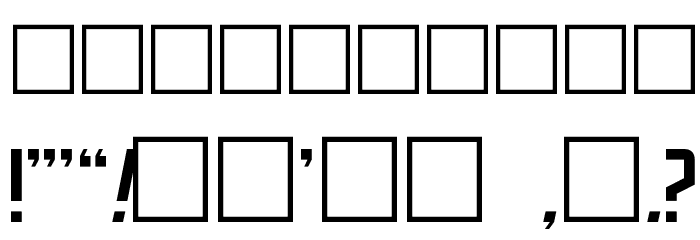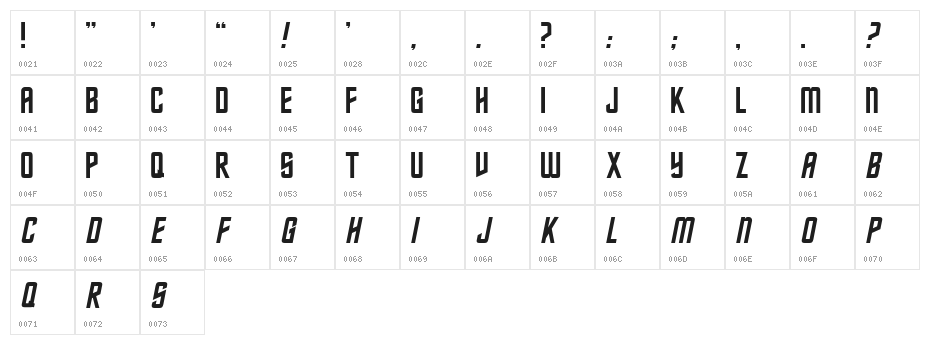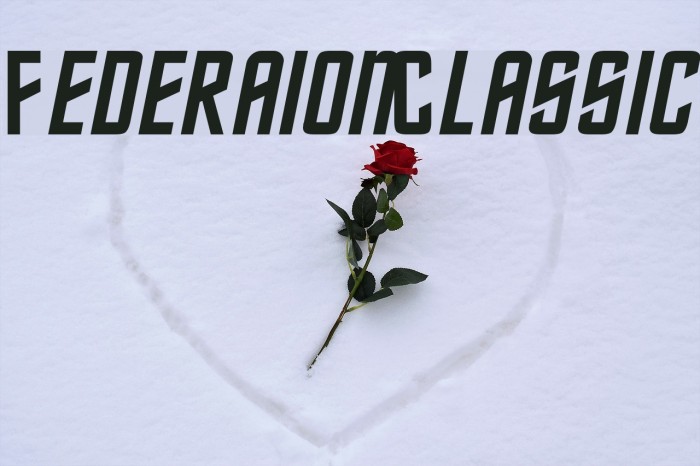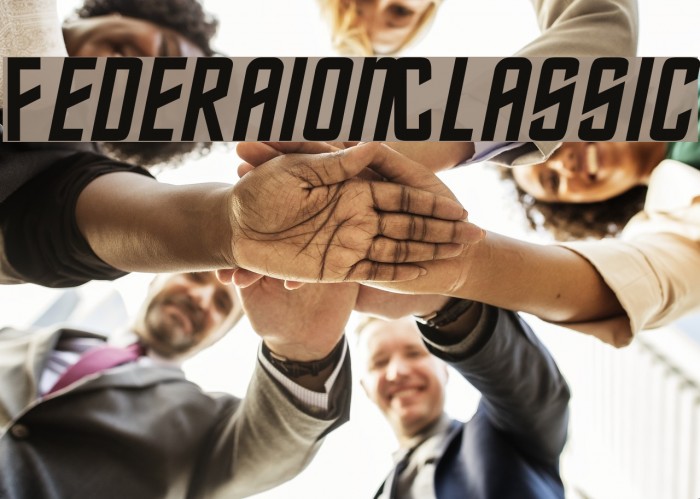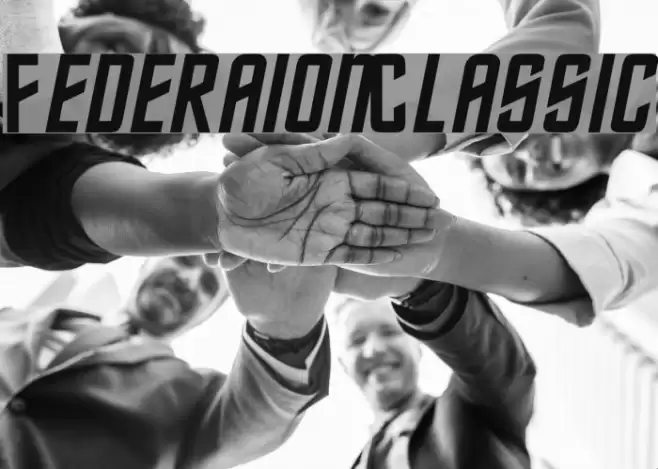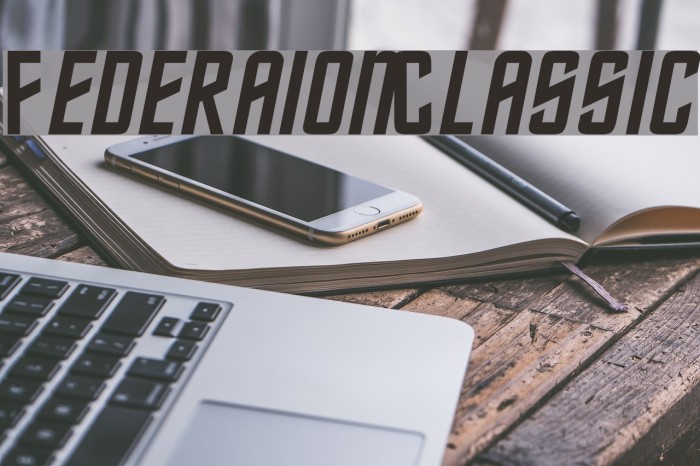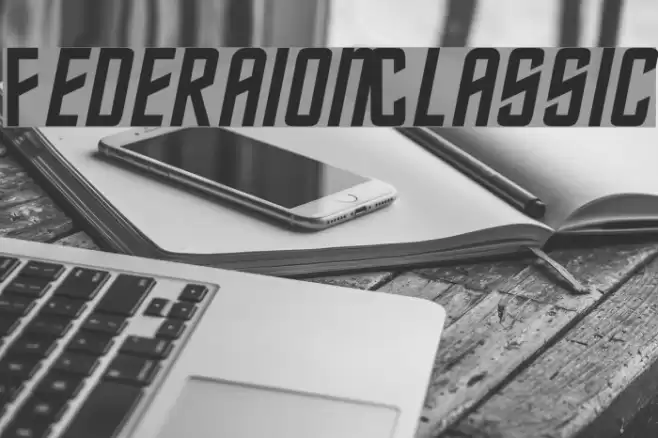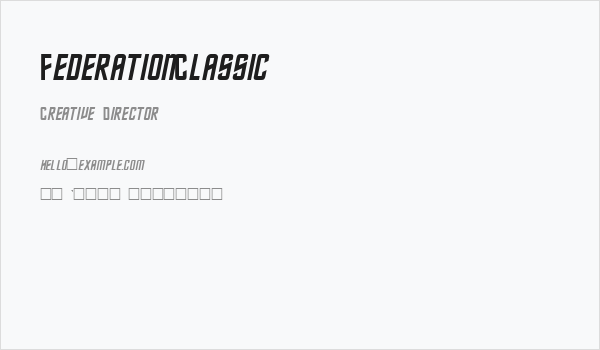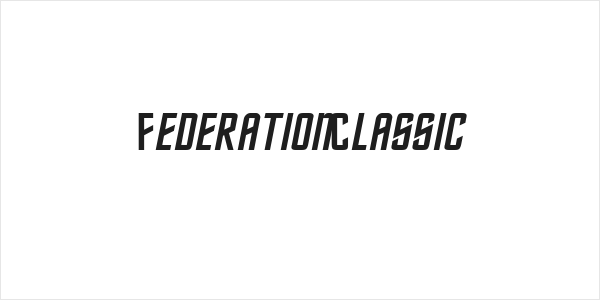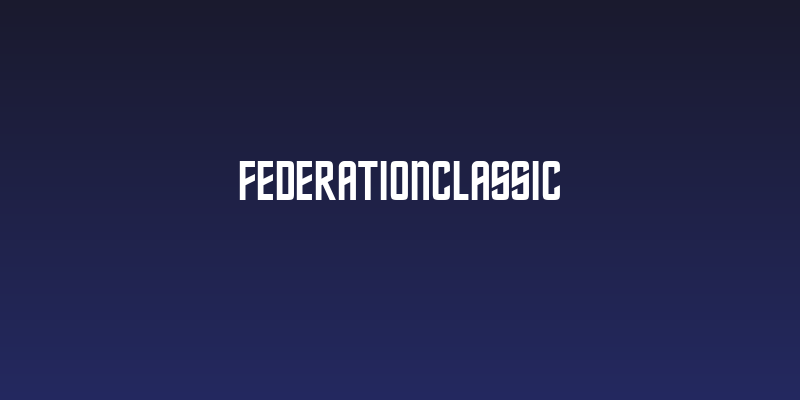
FederationClassic Font
FederationClassic Description
This font features a bold and futuristic design with sharp, angular lines and a strong geometric structure. The uppercase letters are particularly striking, with a consistent height and width that create a uniform appearance. The font has a distinct sci-fi aesthetic, reminiscent of classic space-themed designs. The italicized version adds a dynamic slant, enhancing the sense of motion and speed. The characters are tightly spaced, contributing to a compact and cohesive look. The font's high contrast between thick and thin strokes adds to its boldness and visual impact.